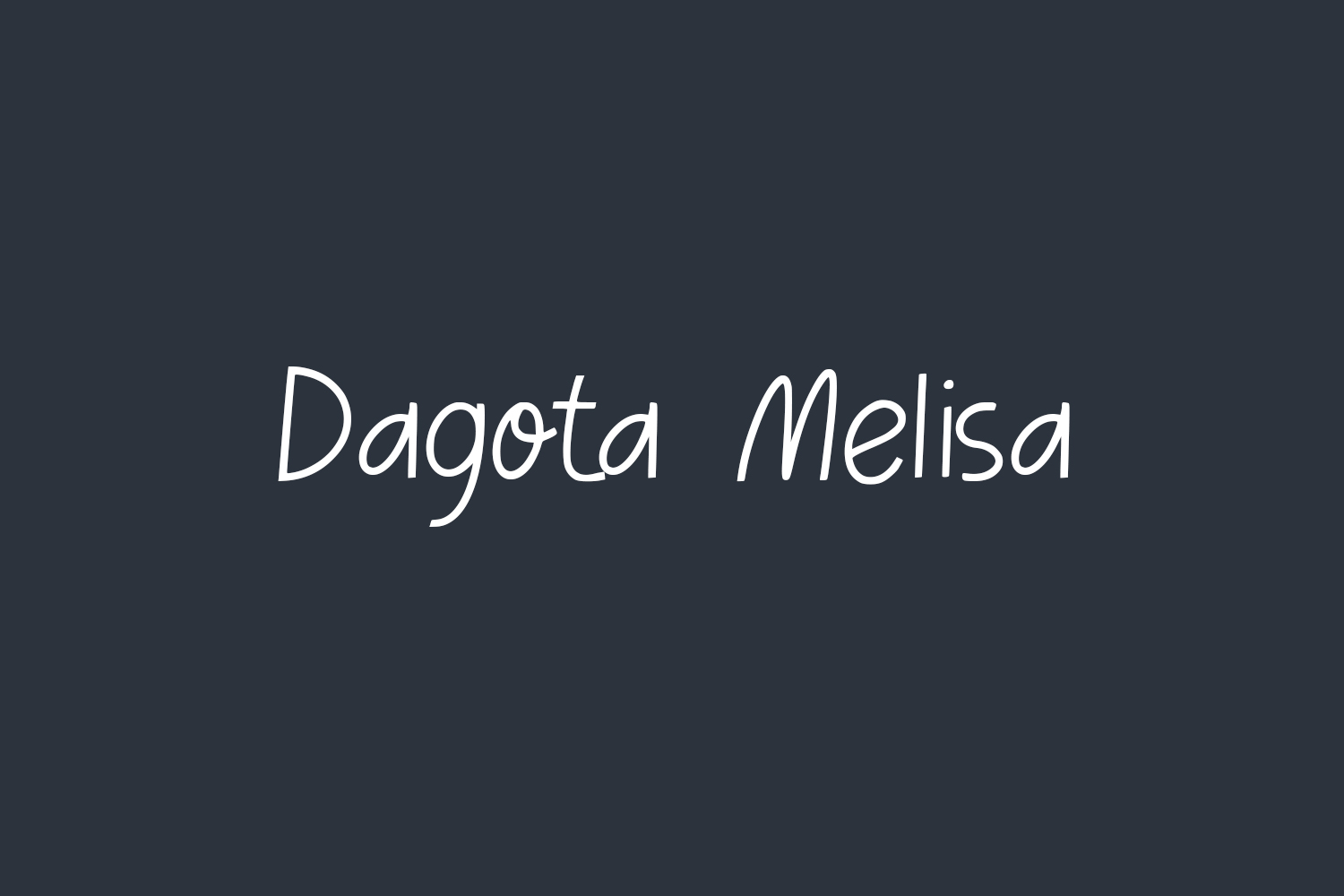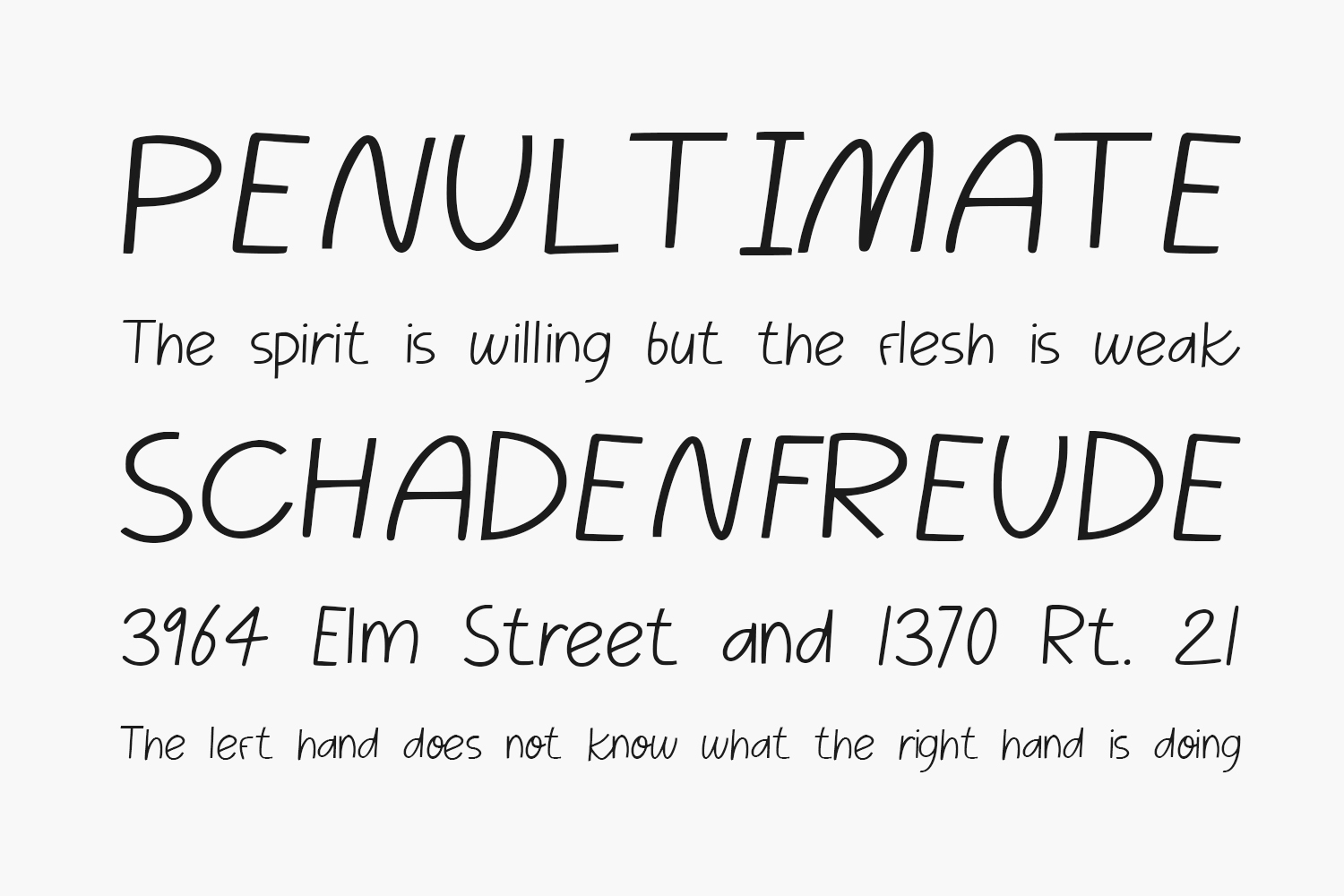
Dagota Melisa Free Font is a handwritten sans style with a moon flash font combination. Dagota Melisa Free Font is suitable for use for invitations, posters, sentence quotes, children’s t-shirt designs, and more. Dagota Melisa Free Font was designed by Permanastudio and is free for personal use only. Please purchase the full version for commercial use.